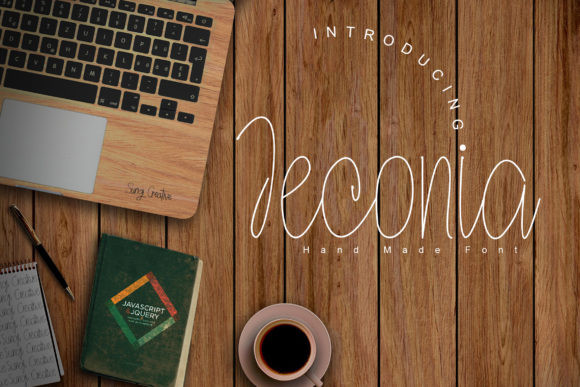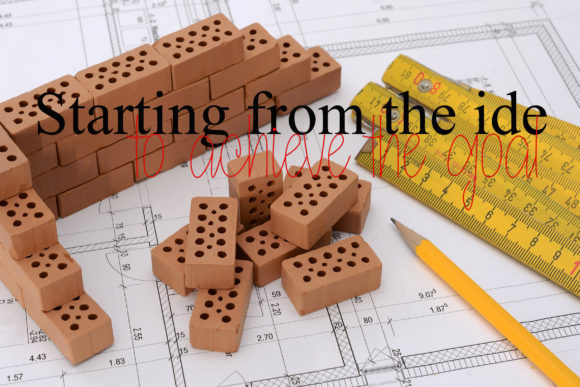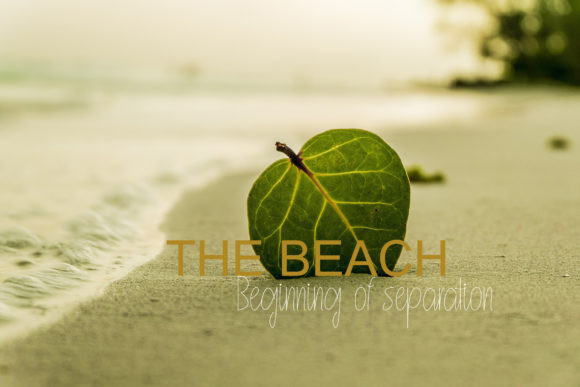
Jeconia Font
Jeconia is an elegant handwritten font. You can use it to add that personal touch to any design!
It’s perfect for logos, book covers, invitations and more.